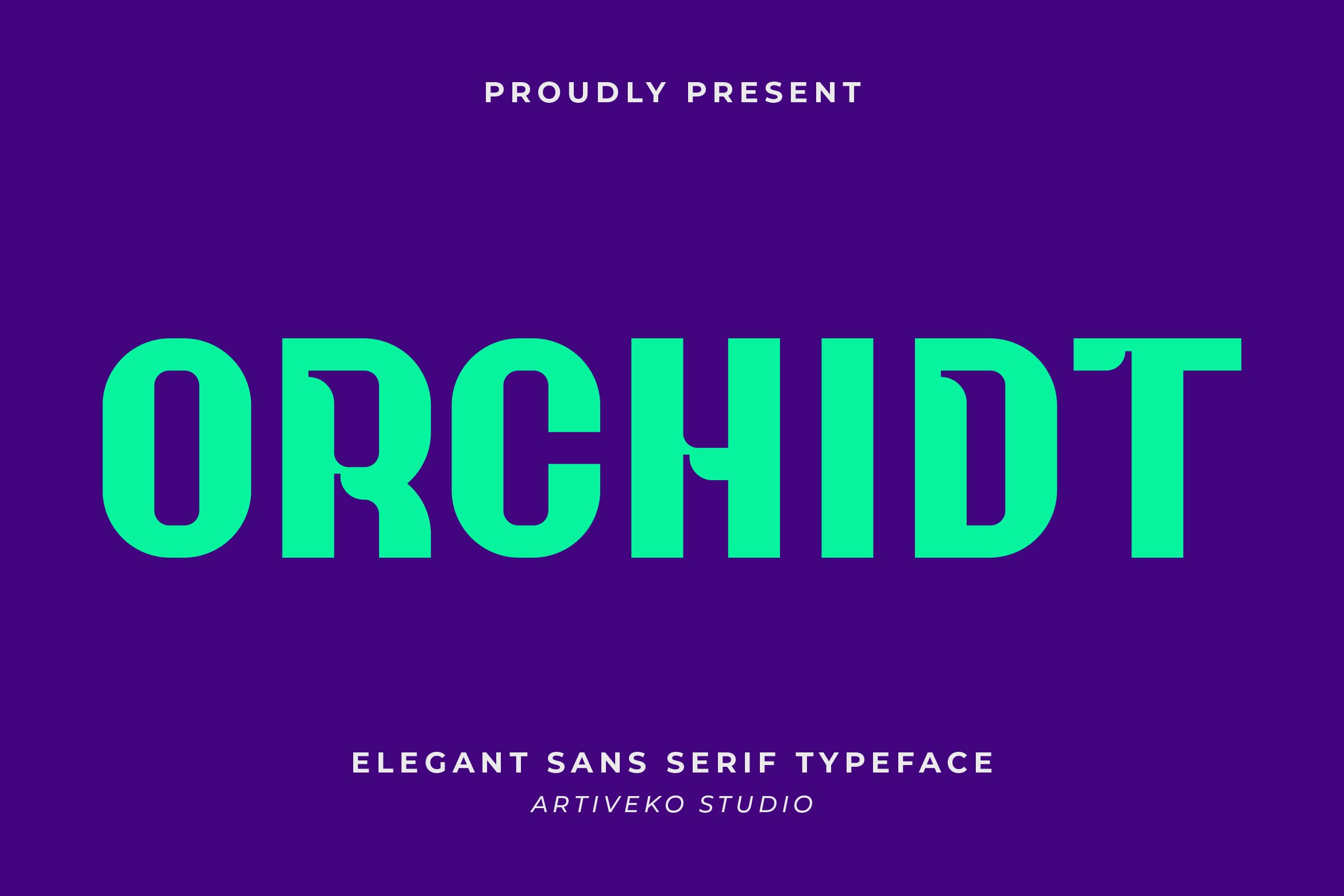
- Orchidt Elegant Sans Serif Font
Orchidt is a fresh and imaginative sans serif font that blends clean structure with subtle artistic flair. Designed for modern creatives, Orchidt features smooth curves, geometric harmony, and playful details that give your typography a distinctive and engaging look.
Perfect for branding, editorial layouts, packaging, logo design, and digital content, Orchidt stands out while maintaining excellent readability. It strikes a perfect balance between professional and expressive — ideal for fashion, lifestyle, tech, and creative industries.
The font includes uppercase and lowercase letters, numerals, punctuation, multilingual support, and a variety of alternates and ligatures for added flexibility.
Elevate your visual identity with Orchidt — the creative sans serif that delivers style, clarity, and originality.